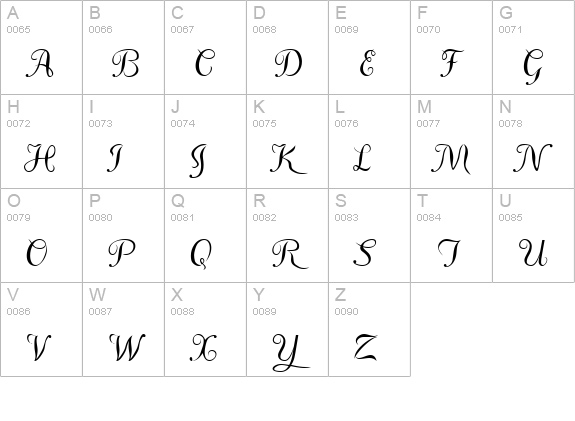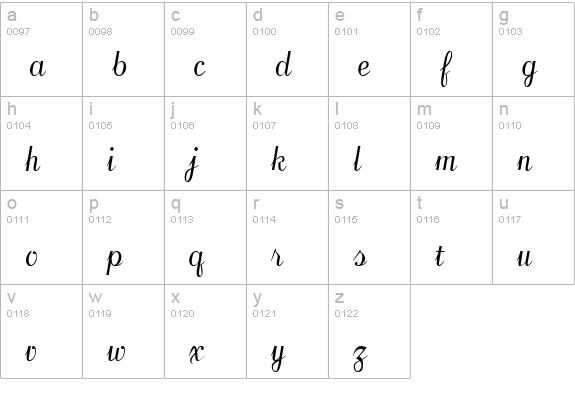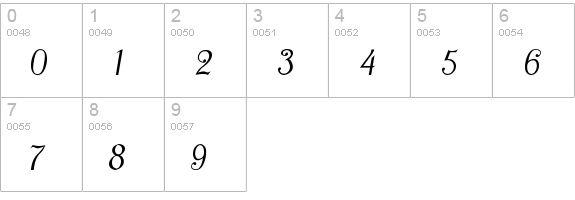
FansiPensleTwo Plain Font Details
FansiPensleTwo Plain font is a trendy and modern typeface that exudes elegance and sophistication. With its sleek lines and clean design, this font is perfect for adding a touch of class to any project. Whether you're creating invitations, branding materials, or social media graphics, FansiPensleTwo Plain font is sure to make a statement. The best part? FansiPensleTwo Plain font is available for free download at FontsMarket.com. That's right, you can add this stunning font to your collection without spending a dime. Don't miss out on the opportunity to elevate your designs with FansiPensleTwo Plain font today!